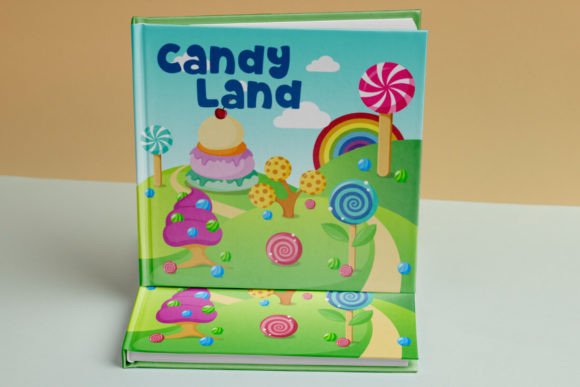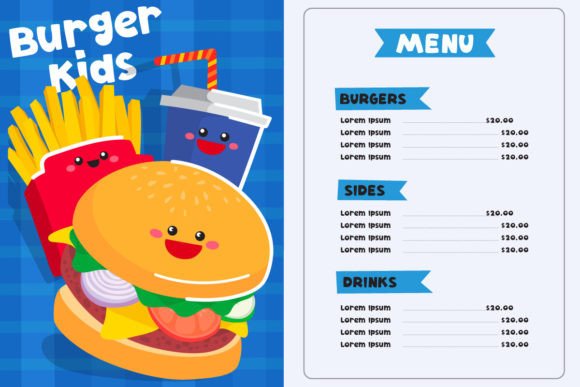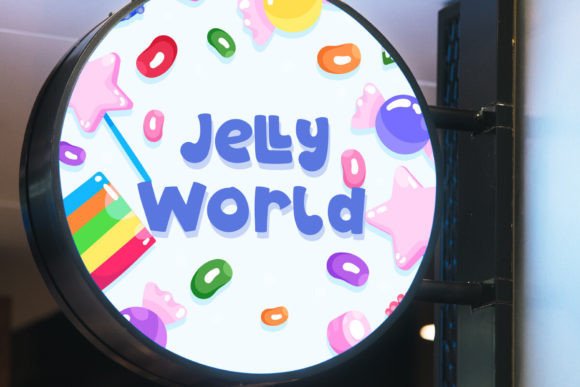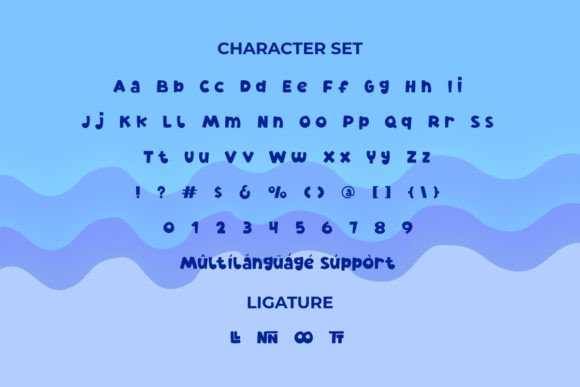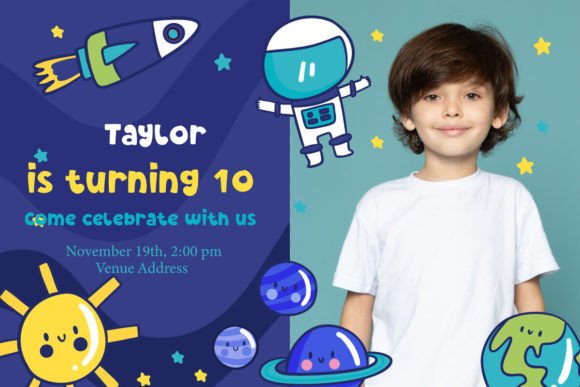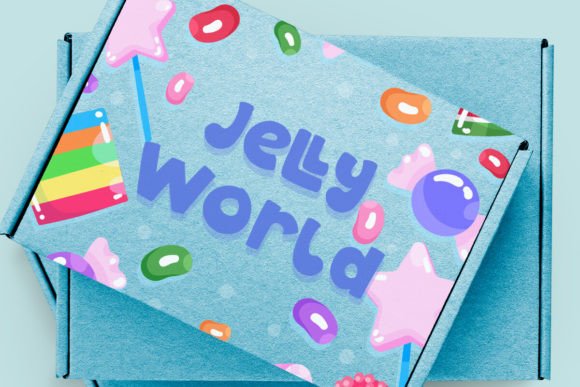
Introduction to Jelly Funny Font
Remember the moment when you’re brainstorming ideas for your next creative project and you need that perfect font to bring your concept to life? For designers, finding the right font can make all the difference in setting the tone and style of a project. That’s where the Jelly Funny Font comes in – a delightful display font that’s sure to add a touch of whimsy and charm to any design.
This free download is a valuable resource for designers looking to add some personality to their work. With its cute and fluffy appearance, the Jelly Funny Font is perfect for a variety of display types, from business cards and custom designs to logos, invitations, and product packaging. Whether you’re working on a high-quality design project or just need a fun font to spice up your social media graphics, the Jelly Funny Font is a great choice.
Key Features of Jelly Funny Font
- High-quality design resource: This font is carefully crafted to provide a unique and playful touch to your designs, making it perfect for various creative projects.
- Unique characteristics: The Jelly Funny Font features a unique and quirky design, with bold lines and playful shapes that are sure to add a touch of fun to any creative project.
- Perfect for creative projects: This font is ideal for use in various creative projects, including graphic design, digital art, and advertising, where a playful and eye-catching font is needed.
Honest Review: Jelly Funny Font
I recently stumbled upon the Jelly Funny Font while searching for a free download to add some whimsy to a creative project. As a designer, I’m always on the lookout for high-quality design resources that can bring my ideas to life.
Here’s what I like about the Jelly Funny Font:
- ✨ The font is highly customizable, making it perfect for designers who want to add a personal touch to their work.
- ✨ The transparent background option is a huge plus, allowing me to easily integrate the font into my designs without any distractions.
- ⚠️ The font may not be suitable for formal or professional projects, as it’s more geared towards creative and playful designs.
- ⚠️ Some users may find the font’s quirky style a bit too much to handle, so it’s essential to use it in moderation.
Overall, I’m impressed with the Jelly Funny Font’s potential. While it may not be the perfect fit for every design project, it’s an excellent addition to any creative designer’s toolkit. With a little creativity, the Jelly Funny Font can add a fun and playful touch to even the most mundane designs.
Tips for Getting the Most Out of Jelly Funny Font
Use the Jelly Funny Font in conjunction with other design elements to create a visually appealing design. Experiment with different font sizes and styles to add emphasis to your text. Use the transparent background feature to create graphics that blend seamlessly with your design.
Common Use Cases for Jelly Funny Font